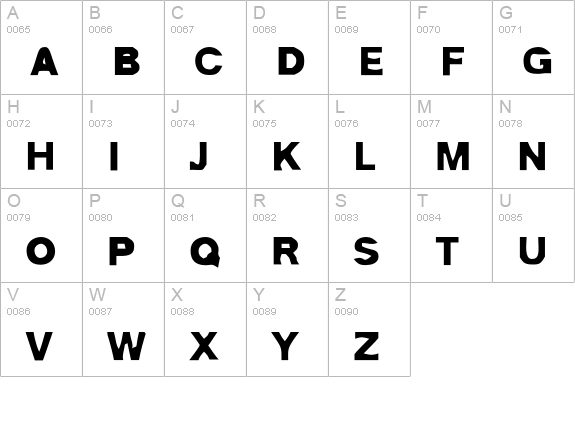
Autotrace-Five Font Details
Autotrace-Five is a modern and stylish font that exudes sophistication and elegance. Its sleek lines and clean curves make it perfect for a wide range of design projects, from branding to editorial layouts. The versatility of Autotrace-Five allows it to be used in both digital and print media, adding a touch of refinement to any piece. What sets Autotrace-Five apart is not only its aesthetic appeal but also its accessibility. This font is freely available to download at FontsMarket.com, making it easy for designers and creatives to incorporate it into their work without any hassle. Whether you're working on a logo, website design, or marketing collateral, Autotrace-Five is sure to elevate your project and leave a lasting impression.